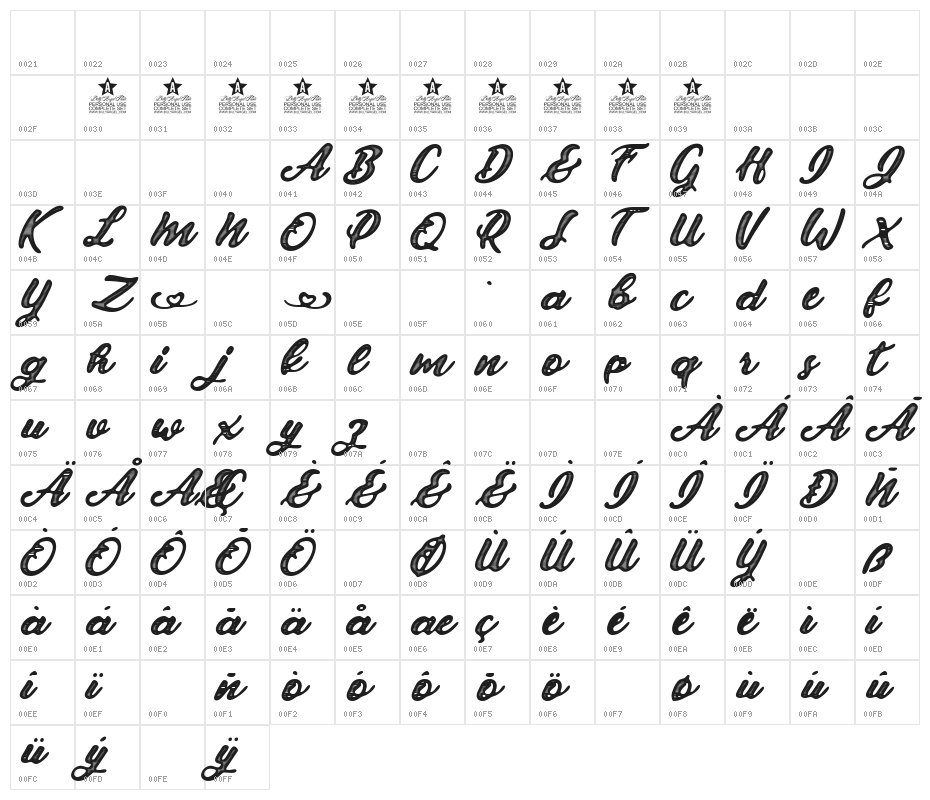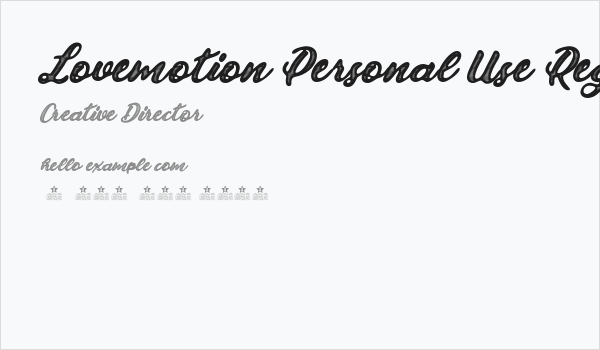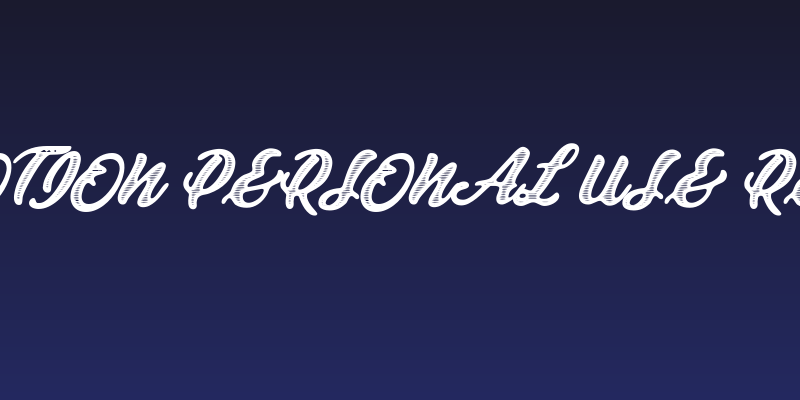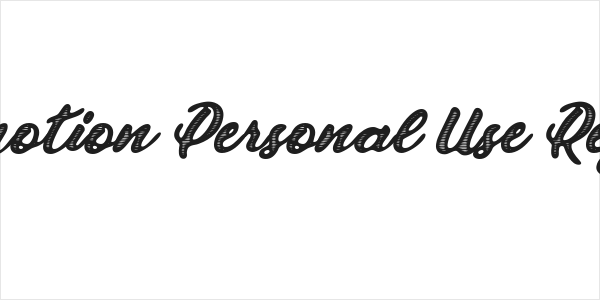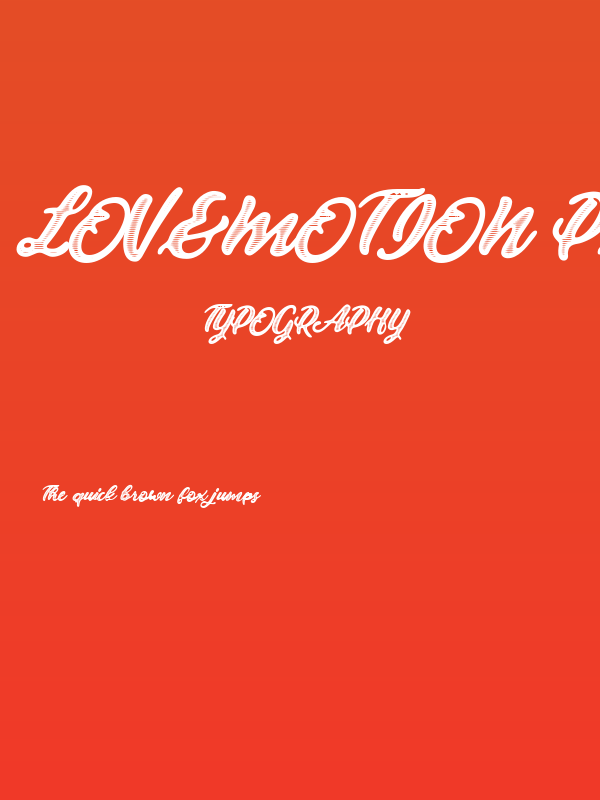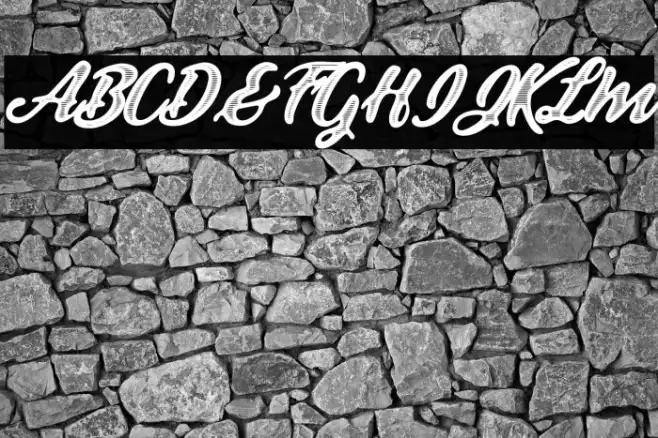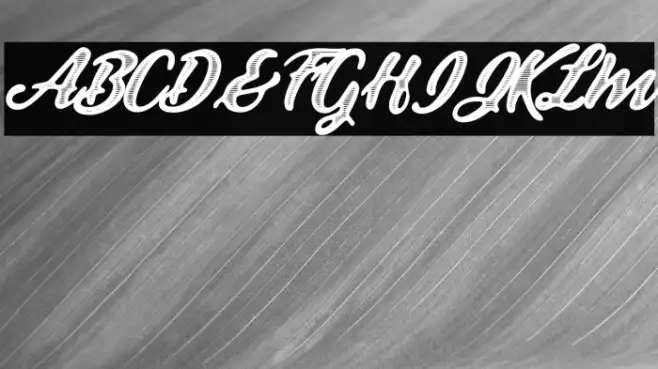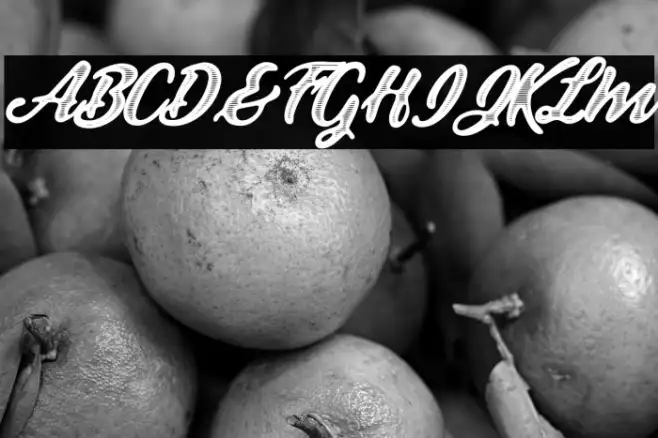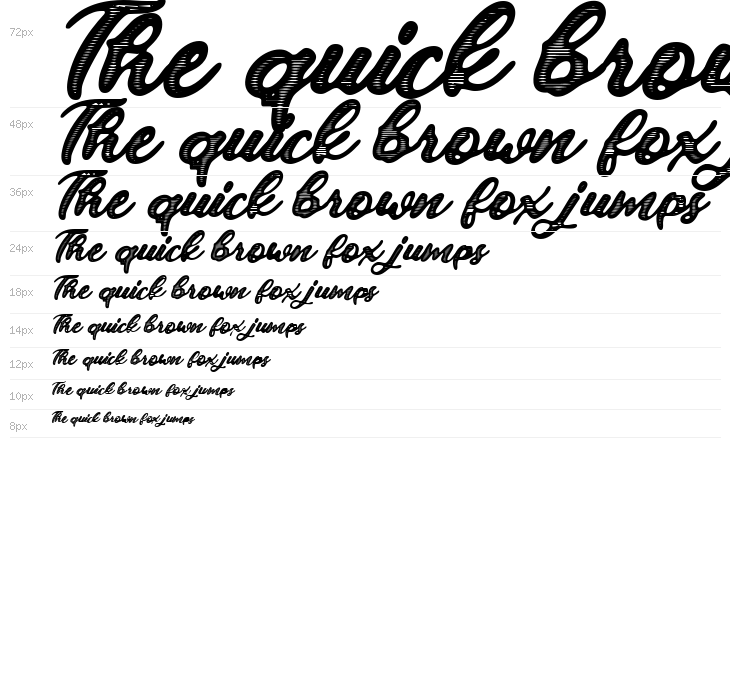
Lovemotion Personal Use Regular Font
Lovemotion Personal Use Regular Description
This font features a bold, cursive style with a handwritten feel, characterized by its flowing, interconnected letters. The strokes are thick and consistent, giving it a strong presence. The uppercase letters are elegantly looped, while the lowercase letters maintain a smooth and fluid connection. The font includes a full set of uppercase and lowercase letters, numbers, and a variety of special characters. Its design is both playful and sophisticated, making it suitable for creative projects that require a personal touch.
| Proposed Projects | Ideal for wedding invitations, greeting cards, logos, and branding materials that require a personal and elegant touch. |